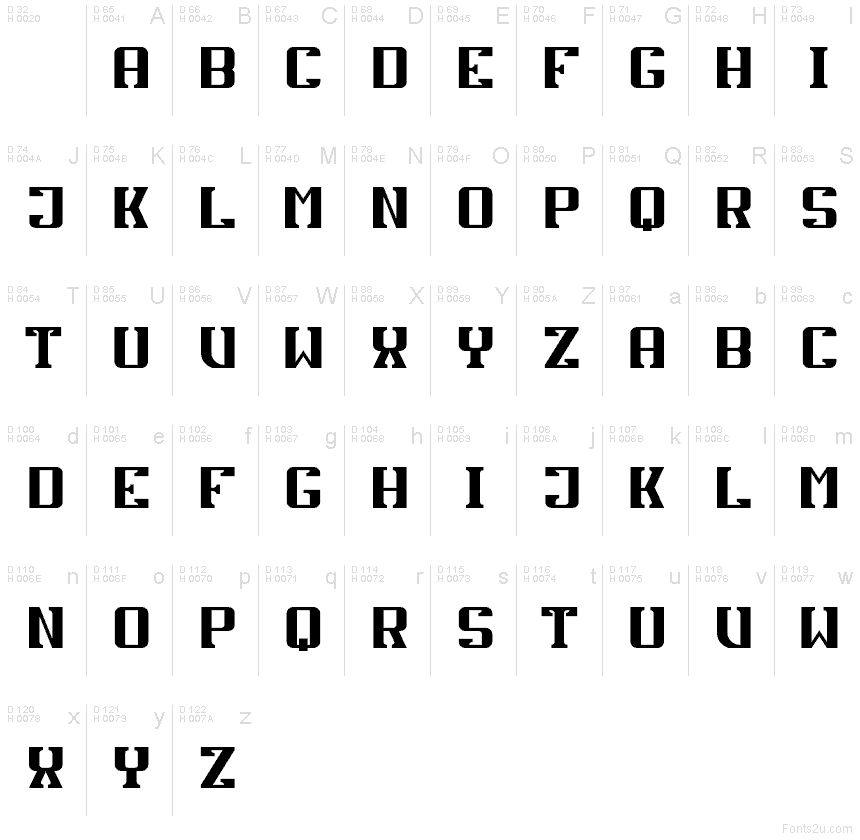
Vortex Extravagant Regular
Vortex Extravagant font by Vladimir Nikolic is a decorative, retro-style display font. This bold and artistic typeface combines geometric and structural elements with a unique flair that captivates viewers’ attention. Modern, innovative, and experimental touches make the font stand out in industrial designs.
A free display font, Vortex Extravagant can adorn flyers, invitations, websites, packaging design or magazine/newspaper covers – to name only a few examples. Also use it when designing logos or social media content posts for instantly guaranteed attention from your audience.